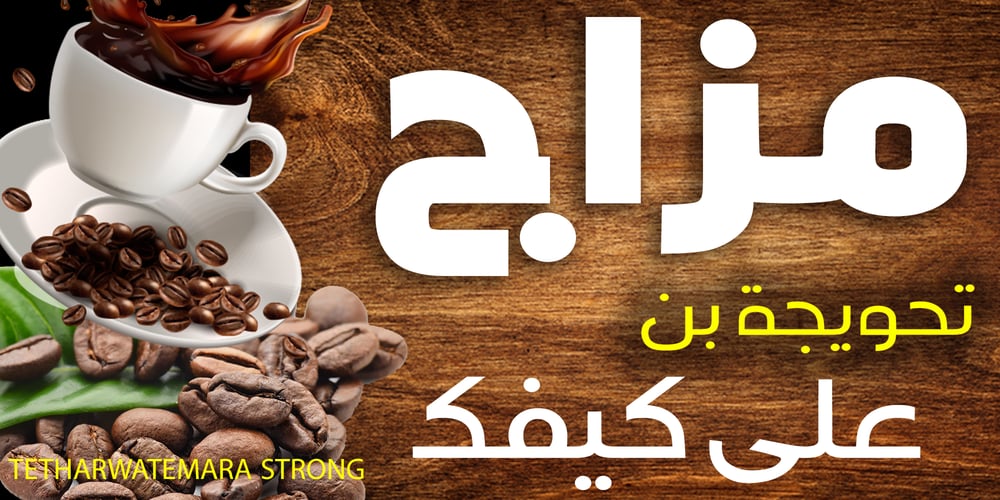
TETharwat Emara Strong Font Family was designed by Tharwat Mohamed Emara and published by Tharwat Emara. TETharwat Emara Strong contains 6 styles and family package options. DescriptionTharwat Emara’s latest font, “Strong,” is a remarkable addition to the world of typography. This font is designed to convey a sense of power and boldness, making it ideal for headlines, posters, and any design that requires a strong visual impact.Design and Aesthetics: “Strong” features thick, robust lines that give it a commanding presence. The characters are meticulously crafted to ensure clarity and readability, even at smaller sizes. The font’s design incorporates modern elements with a touch of classic typography, creating a timeless appeal. Each letter is balanced and proportionate, making the font versatile for various design applications.Versatility: One of the standout features of “Strong” is its versatility. It can be used in both digital and print media, making it a valuable asset for designers. Whether you’re creating a website, a magazine cover, or a billboard, “Strong” adapts seamlessly to different formats. Its bold nature ensures that it grabs attention, while its clean lines maintain readability.Applications: “Strong” is perfect for a wide range of applications. In advertising, it can be used to create eye-catching headlines that draw the viewer’s attention. In branding, it can convey a sense of reliability and strength, making it suitable for logos and brand identities. Additionally, “Strong” works well in editorial design, providing a striking contrast to body text and enhancing the overall visual hierarchy.Technical Specifications: The font supports multiple languages, including Latin and Arabic scripts, making it accessible to a global audience. It comes in various weights, from regular to bold, allowing designers to choose the appropriate level of emphasis for their projects. “Strong” is also optimized for web use, ensuring fast load times and crisp rendering on all devices.User Experience: Designers who have used “Strong” praise its ease of use and flexibility. The font’s clear structure and well-defined characters make it easy to work with, even in complex design layouts. Its adaptability to different design styles, from minimalist to elaborate, makes it a favorite among professionals.Conclusion: Tharwat Emara’s “Strong” is more than just a font; it’s a statement. Its bold design, versatility, and technical excellence make it a must-have for any designer looking to make a powerful impact. Whether used in print or digital media, “Strong” delivers a message of confidence and strength, living up to its name in every way.